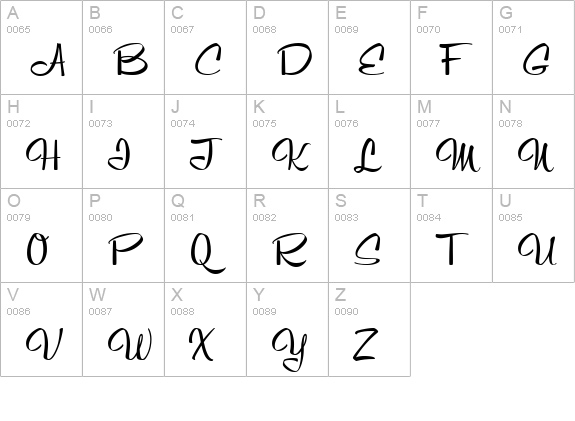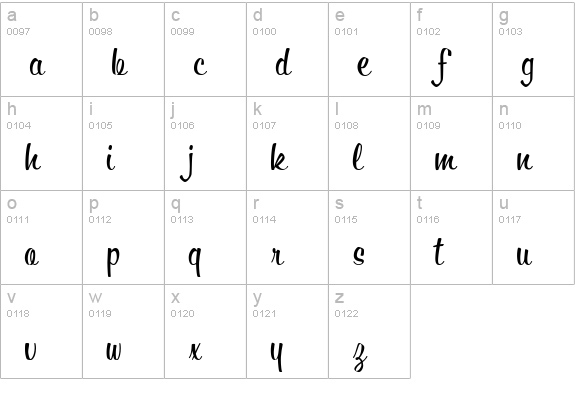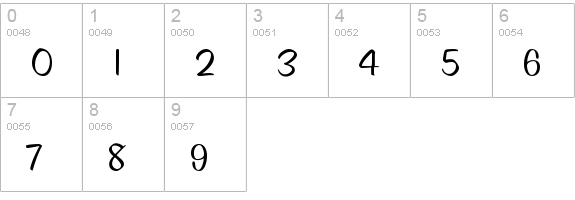
RamblerScriptJF Font Details
RamblerScriptJF font is a stunningly elegant and versatile typeface that exudes a timeless charm. Its carefully crafted letterforms showcase a perfect balance between traditional calligraphy and contemporary design, making it the ideal choice for a wide range of creative projects. With its flowing strokes and exquisite details, RamblerScriptJF font captures the essence of hand-drawn scripts, adding a touch of sophistication to any design. Whether used for invitations, branding, signage, or editorial layouts, this font effortlessly brings a sense of elegance and grace to every piece. One of the most remarkable aspects of RamblerScriptJF font is that it is freely available to download at FontsMarket.com. This means that designers and enthusiasts alike can enjoy the beauty and versatility of this font without any cost or restrictions. Its availability as a free font ensures that everyone has access to high-quality typography, regardless of their budget or resources. RamblerScriptJF font's extensive character set includes a wide range of ligatures, alternates, and swashes, allowing designers to create unique and personalized typography. Its versatility is further enhanced by its compatibility with various design software, ensuring seamless integration into any project. Whether you're working on a wedding invitation, a logo design, or a magazine layout, RamblerScriptJF font offers the perfect balance of elegance and functionality. Its smooth curves and delicate details will captivate your audience, while its legibility ensures that your message is conveyed with clarity. In conclusion, RamblerScriptJF font is a true gem in the world of typography. Its timeless beauty, versatility, and the fact that it is freely available to download at FontsMarket.com make it a must-have for any designer or creative professional. Embrace the elegance of RamblerScriptJF font and elevate your designs to new heights.